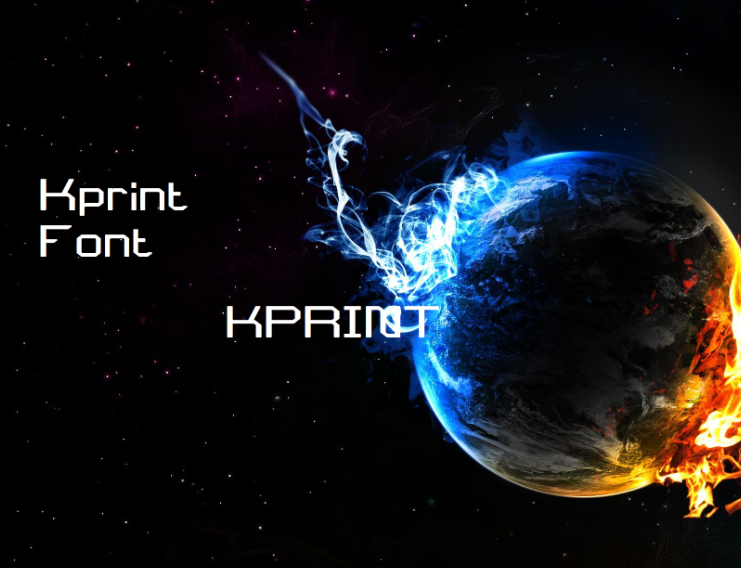
Kprint Font, It has a distinctive futuristic design. Use it to create time-traveling movie posters for futuristic or extraterrestrial productions. Fantastic for creating unique cards and artwork for science fiction fans.This font was created to be used for universal events like game competitions, wall advertisements, and poster designs. Your design can look better with a simple combination. Purchase it right away to enjoy using it ahead of the competition.
Kprint Font
| Classification: | Display Fonts, Techno / Futuristic Fonts |